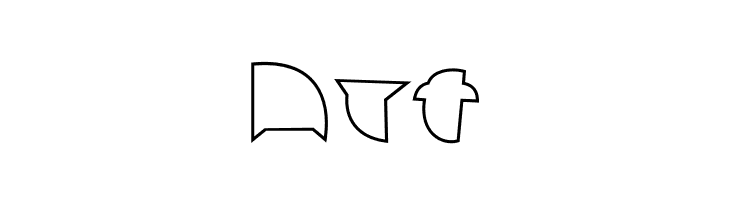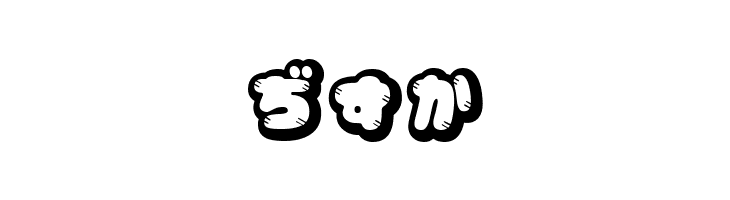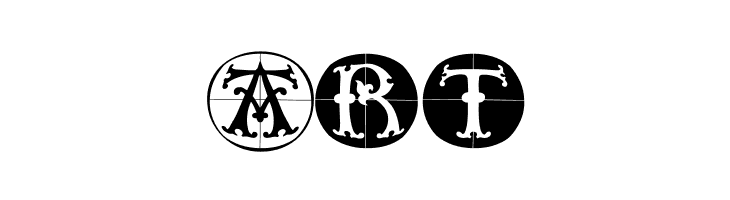
( Fonts by Jorge Morón )
A diverse set of ornamental symbols with bold outlines and intricate details.
( Fonts by Storytype Studio )
A playful, bubbly font with bold outlines and exaggerated curves.
( Fonts by PutraCetol Studio )
A playful, decorative font with candy-like patterns and bold outlines.
( Fonts by Lauren Ashpole )
A playful, geometric font with bold outlines and unique internal patterns.
A bold, playful graffiti-style font with thick, rounded outlines and a bubbly appearance.
( Fonts by Fitrah Type )
A bold, graffiti-style font with dynamic, angular letterforms and thick outlines.
( Fonts by epiclinez )
A bold, graffiti-inspired font with a playful, energetic style and thick outlines.
( Fonts by Maélie Fazilleau )
A bold, graffiti-inspired font with thick, rounded outlines and a playful urban style.
( Fonts by Eko Bimantara )
A playful, melting-style decorative font with bold outlines.
( Fonts by Cikareotype Studio )
Graffiti-style decorative font with heart outlines.
Bold 3D display font with comic-style shading and strong outlines.
A dramatic, hand-drawn display font with bold, irregular outlines.
Bold, stencil-style display font with thick outlines and industrial feel.
Bold, jagged display font with graffiti-like, rough outlines.
Font with U.S. state outlines as characters, labeled with cities or abbreviations.
Bold decorative font with festive star patterns and strong outlines.
Festive, hand-drawn display font with Christmas motifs and bold outlines.
( Fonts by Mr Fisk - Mike Larsson - fontorama.net )
A distressed, melting-style font with jagged outlines and intense visual impact.
A bold, decorative font with intricate, swirling patterns and a vintage psychedelic vibe.
A playful, comic-inspired font with bold, shaded letterforms.
A decorative font with intricate, ornamental details and bold outlines.
A bold, outlined italic font with a modern and dynamic style.
A decorative font with characters inside heart shapes, perfect for romantic designs.
( Fonts by Andy Krahling - Sunwalk )
A bold, playful font with a 3D shadow effect and rounded characters.